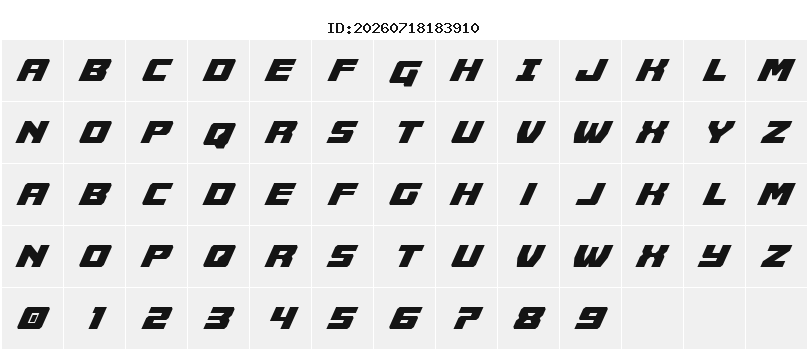
Cruiser Fortress Condensed Italic Preview
• Font Name: Cruiser Fortress Condensed Italic
• Font Style: Condensed Italic
• Full Font Name: Cruiser Fortress Condensed Italic
About Cruiser Fortress Condensed Italic.ttf
Cruiser Fortress Condensed Italic.ttf is a modern, elegant sans-serif font designed for ultimate readability and visual harmony. Perfect for branding, headlines, web design, and print materials.